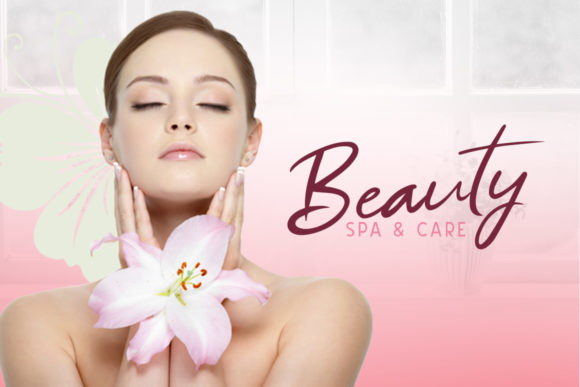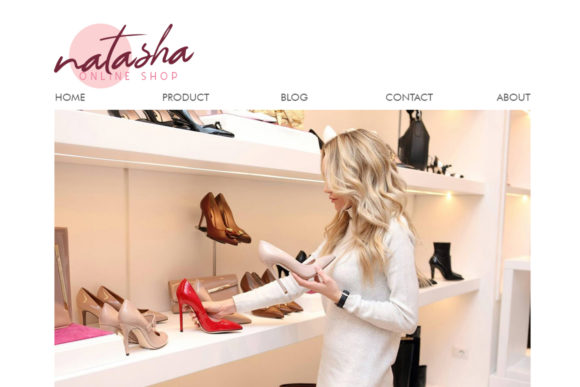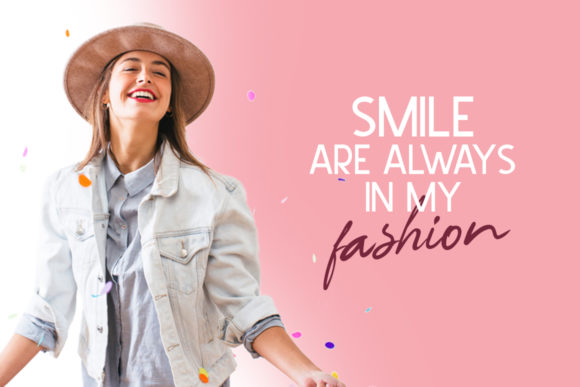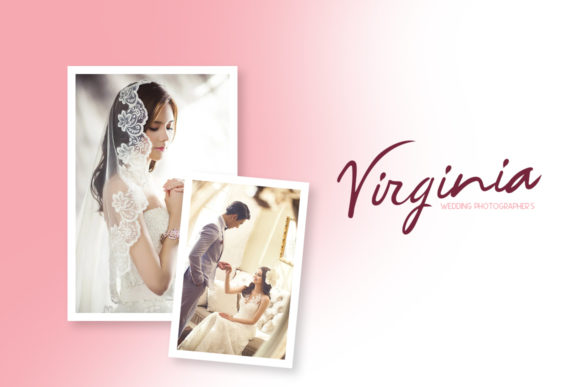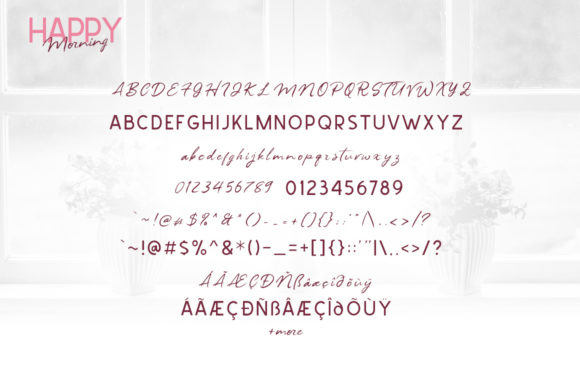
Introducing Happy Morning Font: The Perfect Handwritten Font for Your Creative Projects
Are you tired of using the same old fonts for your creative projects? Do you want to add a touch of elegance and sophistication to your designs? Look no further than the Happy Morning Font, a stunning handwritten font that is sure to take your work to the next level. In this article, we’ll take a closer look at what makes Happy Morning Font so special and why it’s a must-have for designers and crafters alike.
Happy Morning Duo: A Match Made in Heaven
The Happy Morning Font is part of a duo, which means you get not one, but two amazing fonts that work perfectly together. The Happy Morning duo is a match made in heaven, with each font complementing the other to create a truly unique and stylish look. Whether you’re working on a branding project, a craft project, or just want to add some personality to your social media posts, this font duo is sure to impress.
Simplifying Elegance
So, what makes the Happy Morning Font so special? The answer lies in its simplicity and elegance. This font takes the complexity out of handwritten fonts and simplifies them into one truly outstanding font. With its clean lines, flowing curves, and beautiful lettering, Happy Morning Font is the perfect choice for anyone looking to add a touch of sophistication to their designs.
Whether you’re a professional designer or a crafter looking to add some personality to your projects, the Happy Morning Font is the perfect choice. This font is versatile and can be used for a wide range of projects, from branding and advertising to crafting and DIY projects. With its unique and stylish look, Happy Morning Font is sure to make your projects stand out from the crowd.
Key Features of Happy Morning Font
So, what are the key features of the Happy Morning Font? Here are just a few of the things that make this font so special:
- Handwritten look: Happy Morning Font has a beautiful handwritten look that adds a touch of personality to any project.
- Clean lines: The font features clean lines and flowing curves, making it easy to read and beautiful to look at.
- Versatile: Happy Morning Font can be used for a wide range of projects, from branding and advertising to crafting and DIY projects.
How to Use Happy Morning Font
So, how can you use the Happy Morning Font in your projects? Here are a few ideas to get you started:
- Branding projects: Use Happy Morning Font to create a unique and stylish look for your brand.
- Craft projects: Add a touch of personality to your craft projects, such as handmade cards and gift tags.
- Social media posts: Use Happy Morning Font to add some personality to your social media posts and make them stand out from the crowd.
- Advertising: Use this font to create eye-catching ads that grab attention and leave a lasting impression.
In conclusion, the Happy Morning Font is a must-have for designers and crafters alike. With its beautiful handwritten look, clean lines, and versatility, this font is perfect for a wide range of projects. Whether you’re looking to add a touch of elegance to your designs or just want to try something new, Happy Morning Font is the perfect choice. So why wait? Download Happy Morning Font today and see the difference it can make in your creative projects.
Overall, the Happy Morning duo is a match made in heaven, and this font simplifies elegance into one truly outstanding handwritten font. With its unique and stylish look, Happy Morning Font is sure to take your creative projects to the next level.